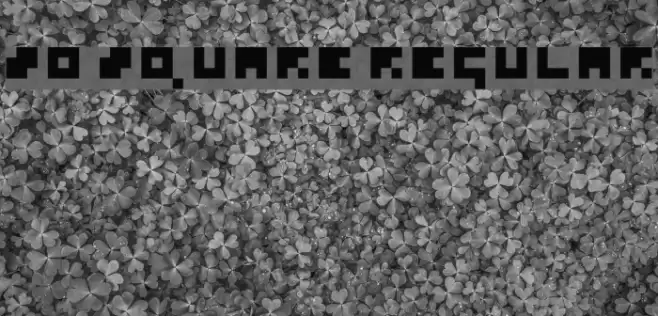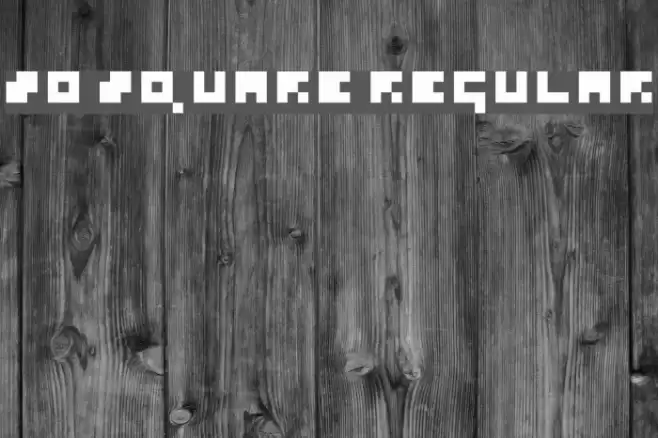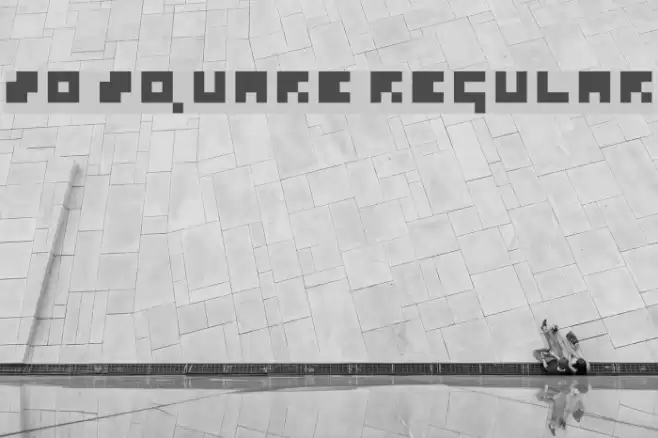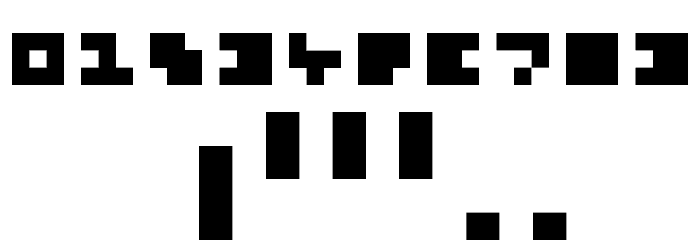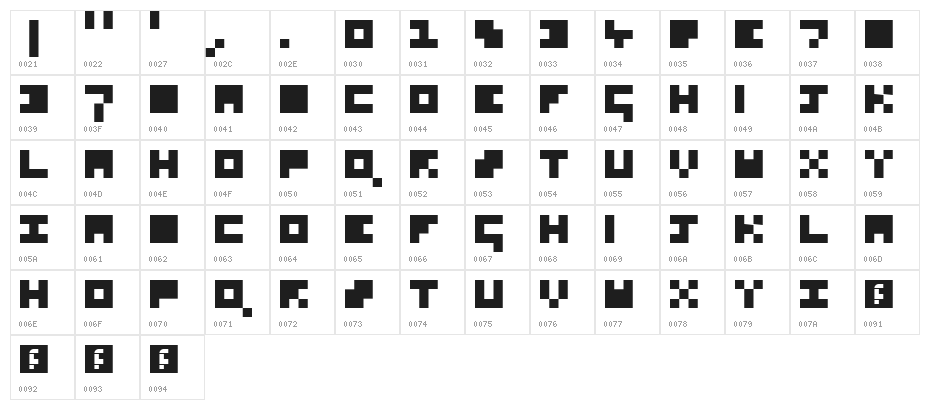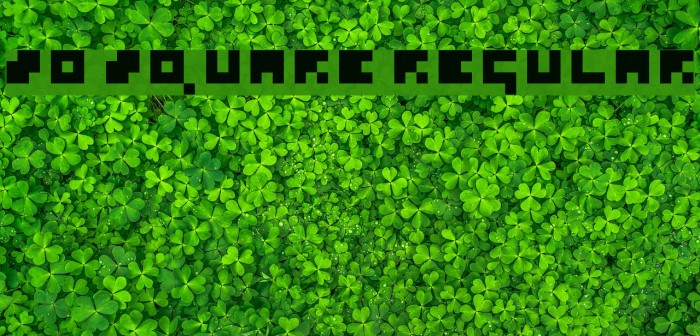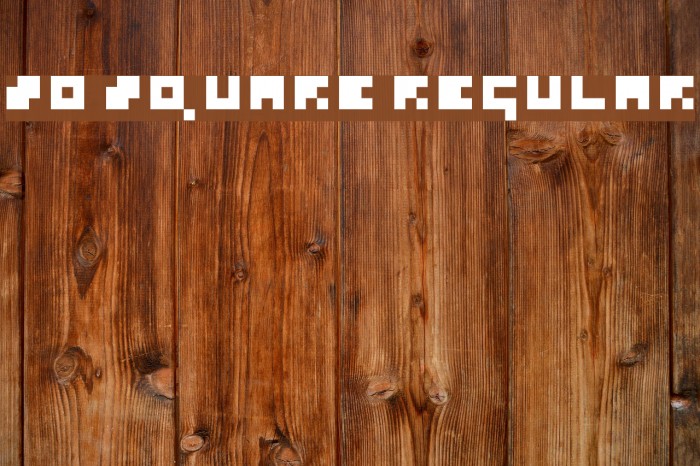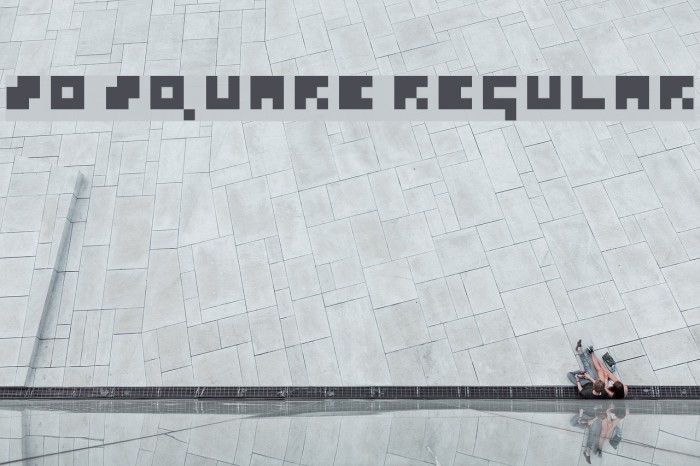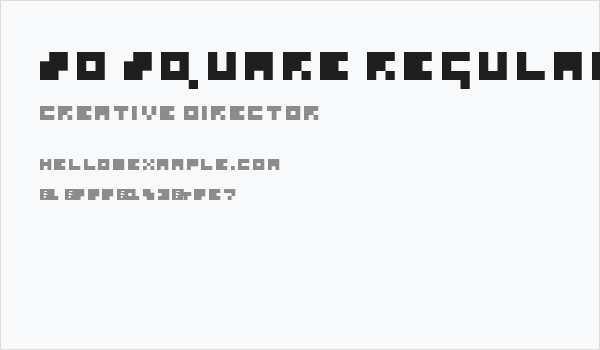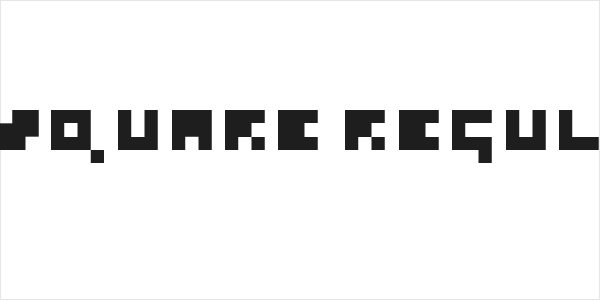
So Square Regular Font
So Square Regular Description
This font features a bold, geometric design with a distinctly pixelated appearance. Each character is composed of square blocks, creating a uniform and modular look. The font's structure is reminiscent of early digital or video game typography, offering a retro and technological feel. Its blocky nature ensures high legibility at larger sizes, making it ideal for impactful headlines or titles. The consistent width and height of each character contribute to a balanced and cohesive visual presentation.
A bold, pixelated font with a geometric, retro digital style from Uncategorized fonts.
- Proposed Projects: Ideal for video game graphics, tech-themed posters, digital art projects, and retro-style branding.
- Overall Style: Retro, Digital